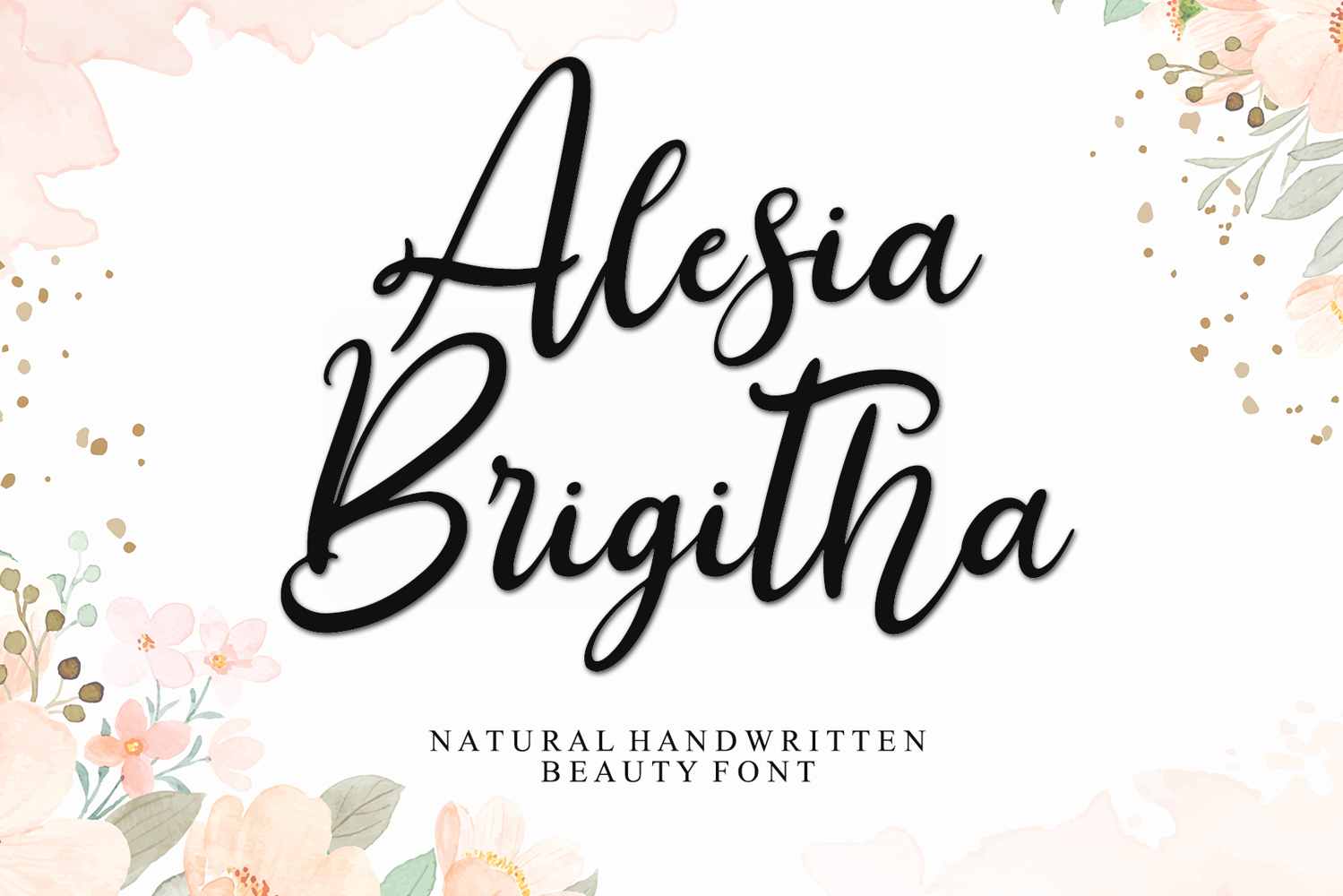
Beautiful Handwritten
Alesia Brigitha is a lovely and timeless handwritten font. It is the best choice for creating eye-catching logos, branding, and quotes. Every letter has a unique and beautiful touch, which will make your design come alive!